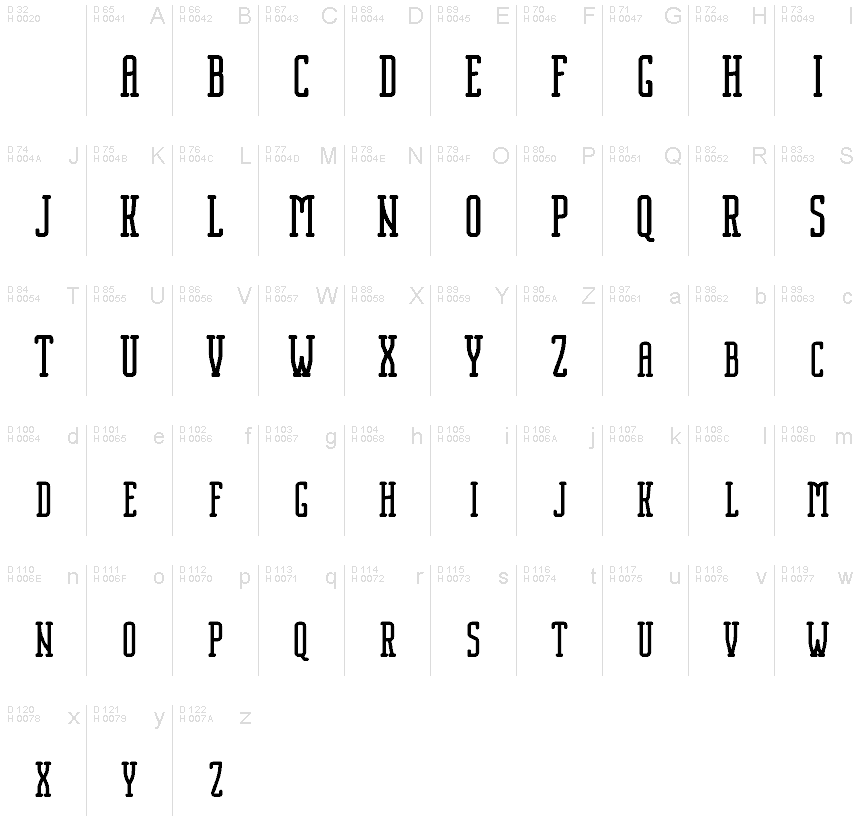
Nordin Slab Rounded Demo Reg
Nordin Slab Rounded font is a structured slab serif with a vintage influence. The free font follows industrial-style lettering and has smooth, rounded caps edges that give it a soft feel. It is condensed, which means less spacing between characters as well as a sharp authoritative look.
The authoritative presence makes it great for logos, posters, credentials designing, book covers amongst more options. Create impressive presentations or maybe eye-popping package designs for the new yogurt product or food item you are launching. Branding too will never look more beautiful than with Nordin Slab Rounded which takes your graphics to the next level!